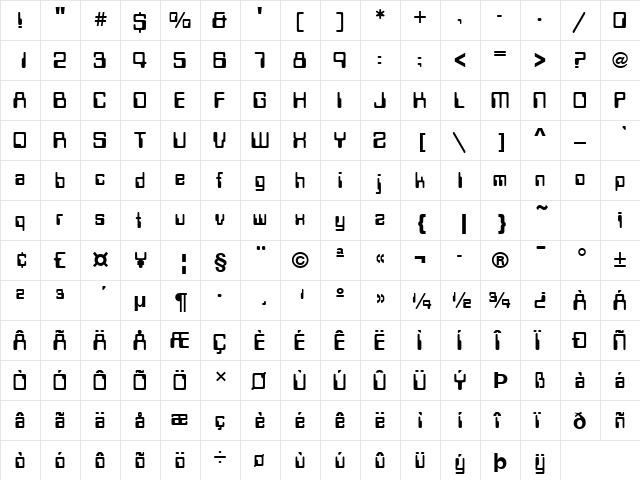
Datalook Regular
Design Context for Datalook Typeface
Datalook offers clean, dependable letterforms without strong stylistic allegiance, making it a practical choice for designers who need flexibility.